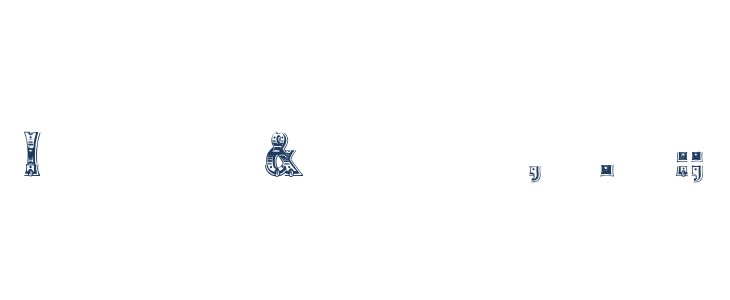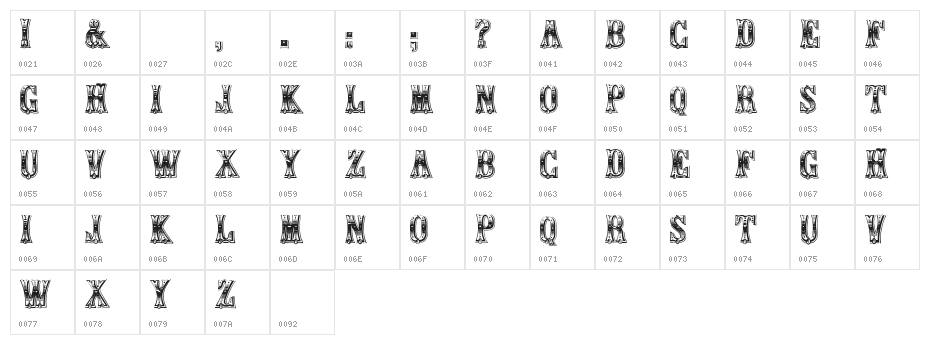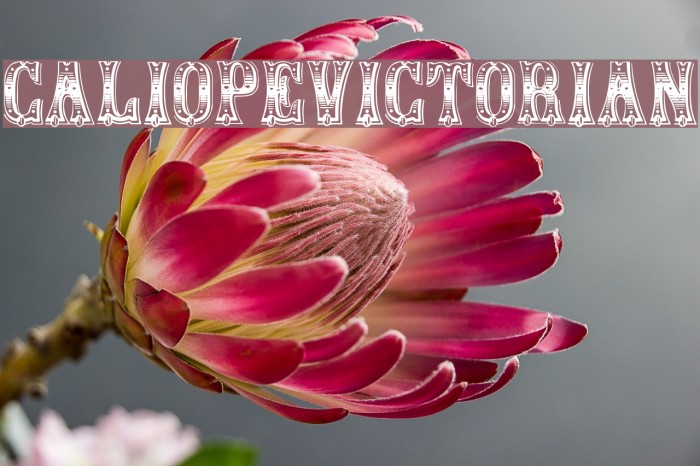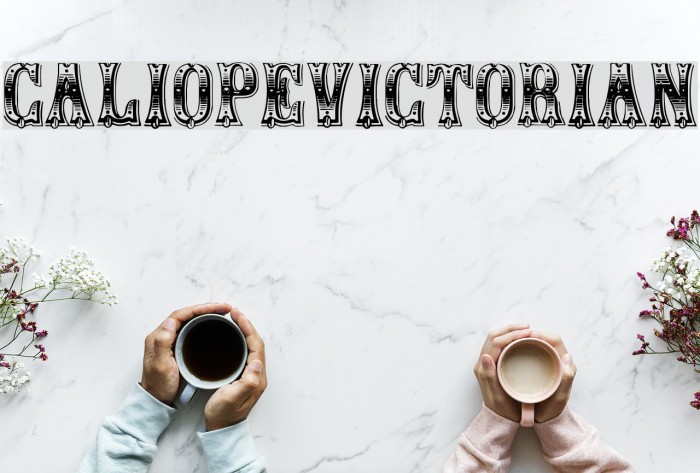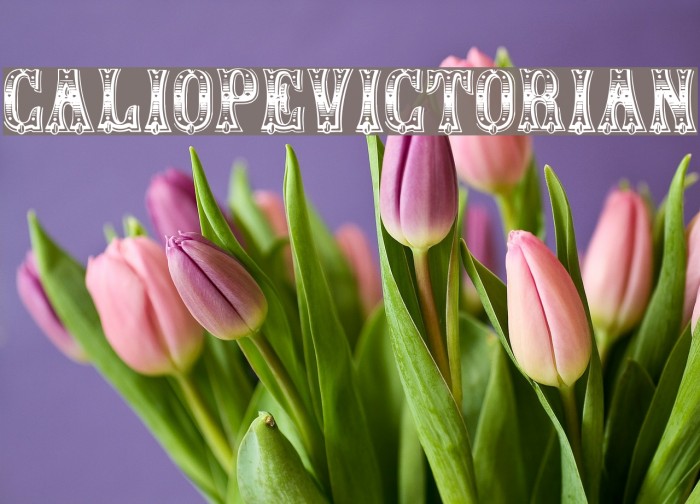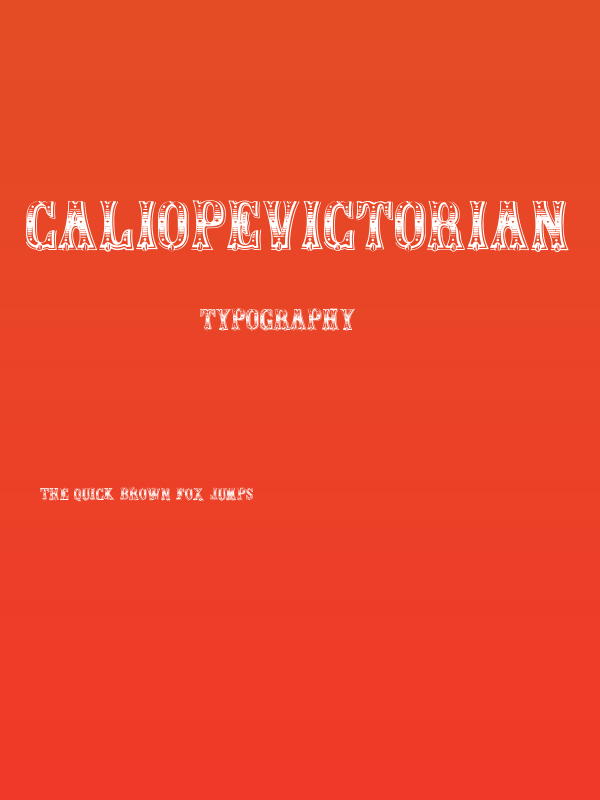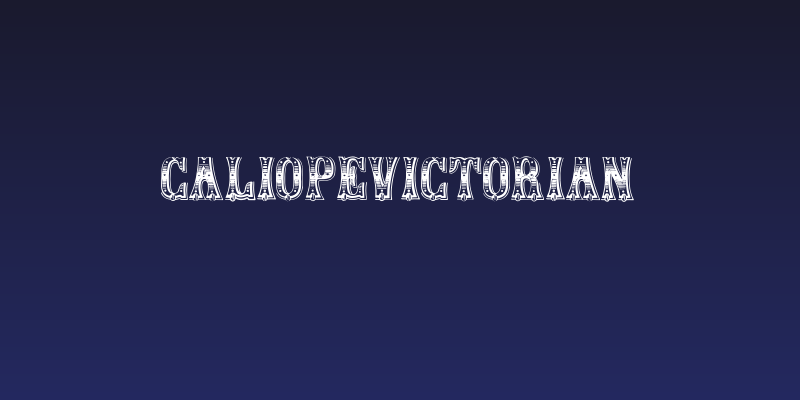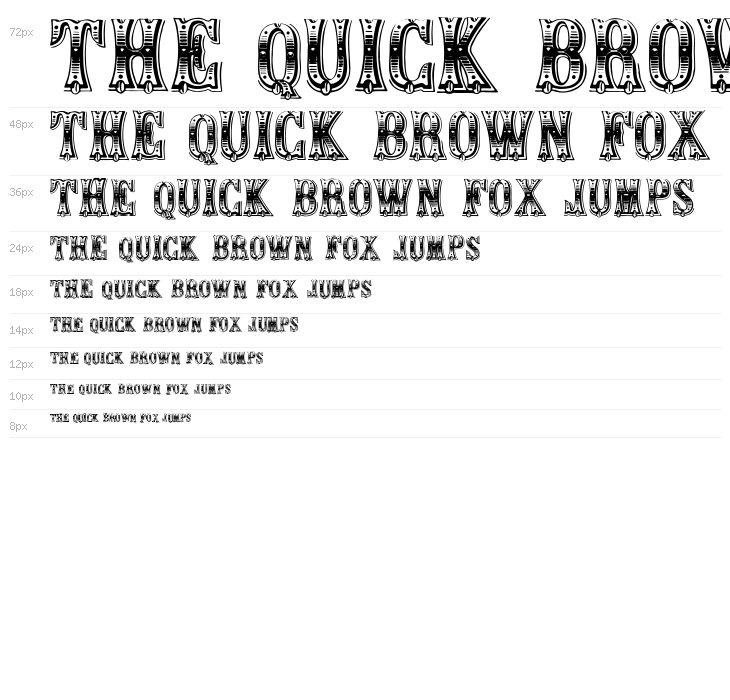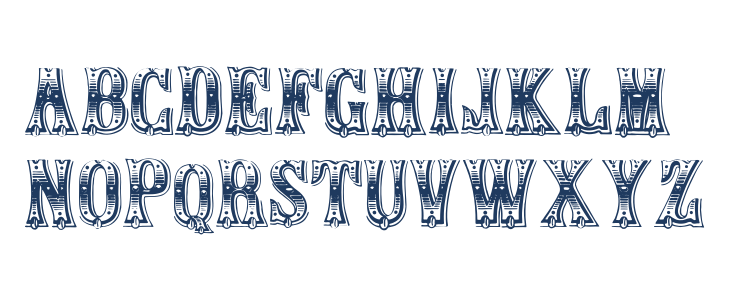
CaliopeVictorian Font
| Projetos propostos | Ideal for vintage-themed posters, event invitations, branding, and artistic projects requiring a historical touch. |